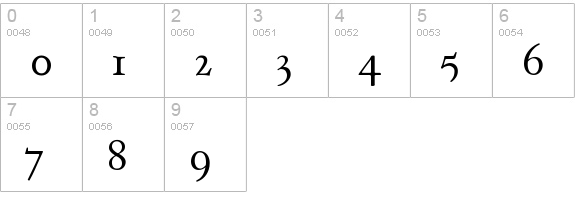
Day Roman font is a classic and elegant typeface that exudes sophistication and timelessness. With its clean lines and traditional design, Day Roman is perfect for a wide range of projects, from formal invitations to professional documents. This versatile font is easy to read and adds a touch of refinement to any text. The best part is that Day Roman font is available for free download at FontsMarket.com. You can easily access this beautiful typeface without any cost, making it a valuable addition to your font collection. Don't miss out on the opportunity to enhance your designs with the timeless beauty of Day Roman font. Download it today and elevate your projects with this exquisite typeface.